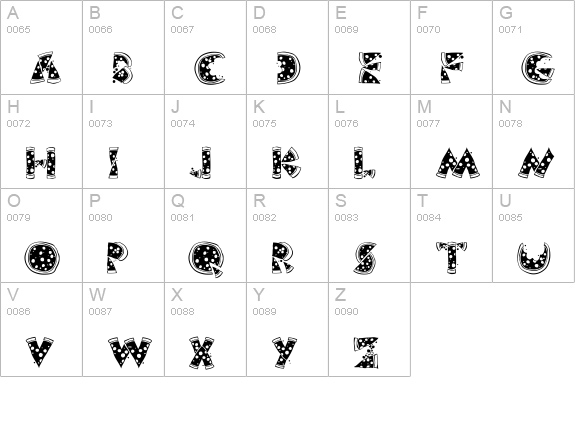
KAPizza Font Details
Introducing KAPizza font, a deliciously delightful typeface that will add a touch of flavor to your designs. This unique font embodies the essence of a freshly baked pizza, with its playful and appetizing letterforms. KAPizza font is the perfect choice for any project that needs a dash of fun and casual charm. Whether you're designing a menu for a trendy pizzeria, creating a logo for a food blog, or crafting a mouthwatering invitation for a pizza party, this font will make your text pop and leave a lasting impression. But the best part? KAPizza font is completely free! That's right, you can download this delectable font at FontsMarket.com without spending a single penny. We believe that great design should be accessible to everyone, and that includes having access to high-quality fonts without breaking the bank. With its wide range of characters and glyphs, KAPizza font offers versatility and functionality. It comes in various weights and styles, allowing you to experiment and create eye-catching typography that suits your project's needs. From thin and crispy to bold and cheesy, this font has it all. So why wait? Indulge your creativity and satisfy your design cravings with KAPizza font. Whether you're a professional graphic designer or a pizza-loving enthusiast, this font will surely become your go-to choice. Download it today at FontsMarket.com and start adding a slice of deliciousness to your designs.